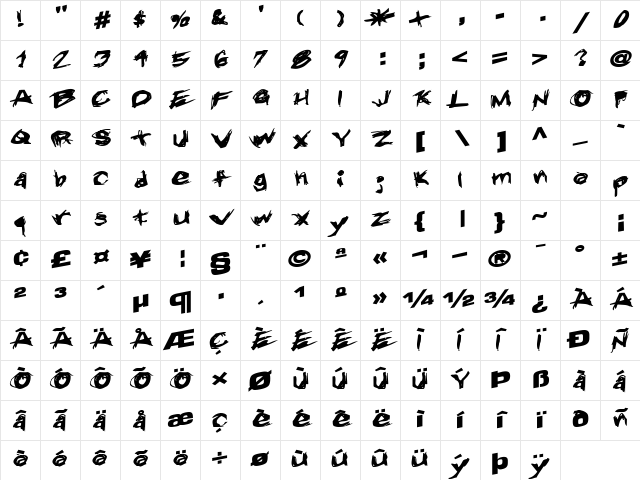
TouchTheWind59 Bold
Design Context for TouchTheWind59
TouchTheWind59 is a composed and adaptable typeface that performs quietly and consistently across a wide range of design contexts. Its bold stroke weight gives it real presence on the page.